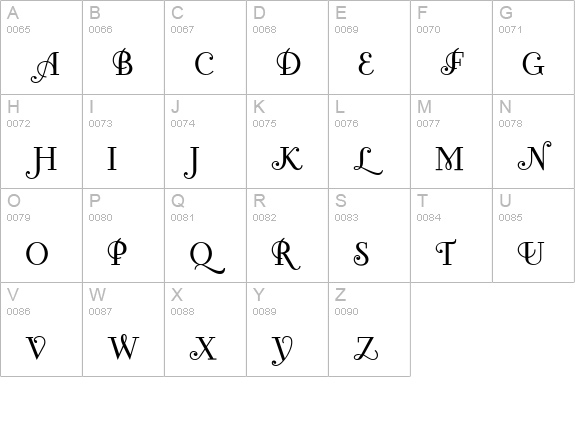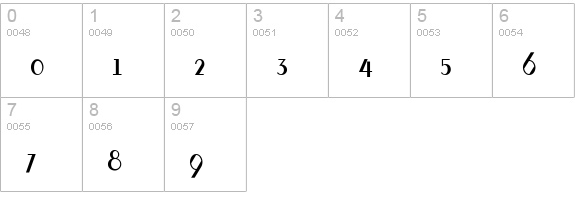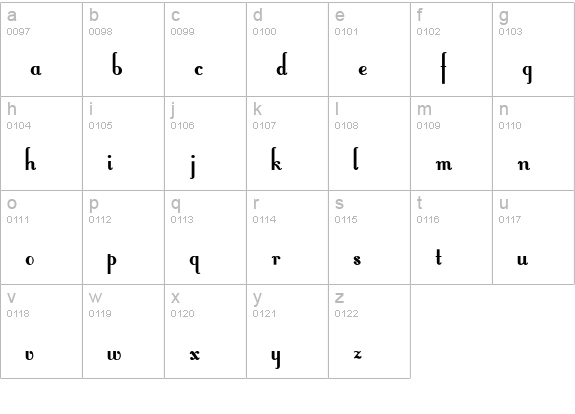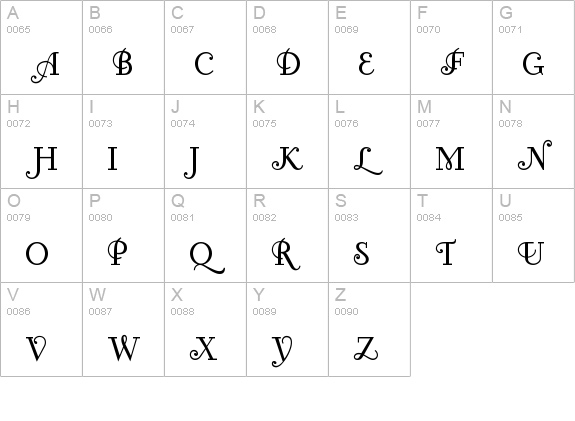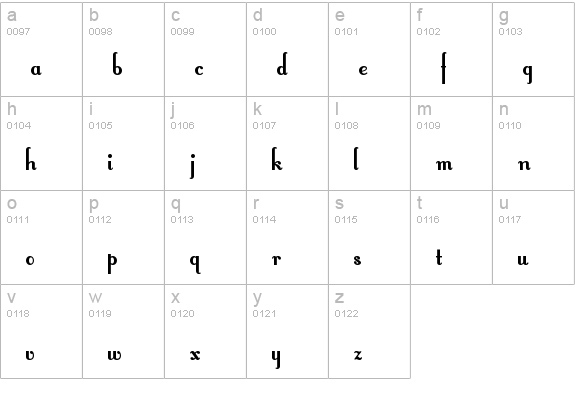
Fontleroy Brown NF Font Details
Introducing Fontleroy Brown NF, a truly captivating font that effortlessly combines elegance and playfulness. This enchanting typeface is perfect for adding a touch of sophistication to any design project, while maintaining a sense of whimsy and charm. Fontleroy Brown NF features beautifully rounded letterforms that exude a sense of warmth and friendliness. Its graceful curves and balanced proportions make it a versatile choice for a wide range of creative endeavors, from branding and packaging to invitations and signage. What sets Fontleroy Brown NF apart is not only its stunning aesthetic, but also its accessibility. This font is freely available to download at FontsMarket.com, allowing designers and enthusiasts alike to bring their visions to life without breaking the bank. In a world where premium fonts often come with a hefty price tag, Fontleroy Brown NF offers a refreshing alternative that doesn't compromise on quality or style. Whether you're designing a wedding invitation that needs a touch of elegance or crafting a logo that calls for a playful twist, Fontleroy Brown NF is the perfect choice. Its timeless appeal and generous availability make it a must-have in any designer's toolkit. So, why wait? Head over to FontsMarket.com and download Fontleroy Brown NF today. Unleash your creativity and let this delightful font elevate your designs to new heights. With Fontleroy Brown NF, the possibilities are endless and the results are sure to leave a lasting impression.